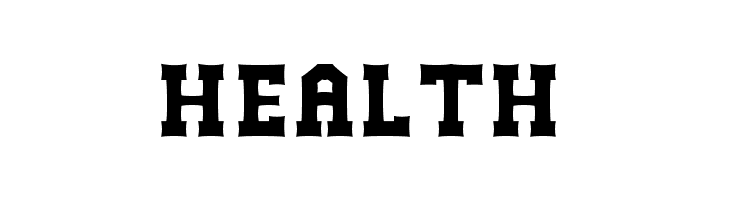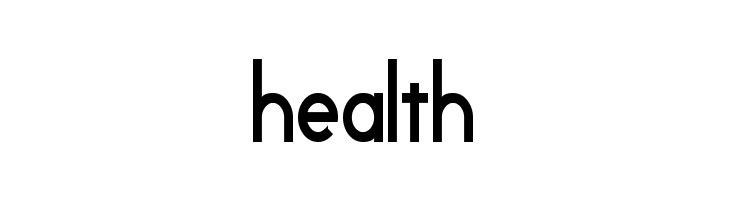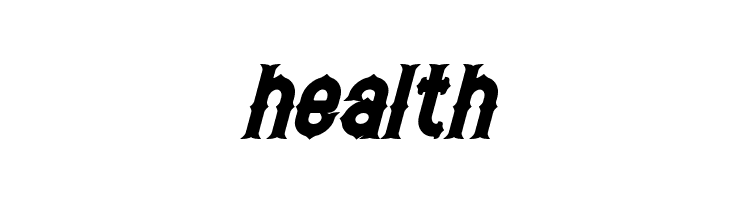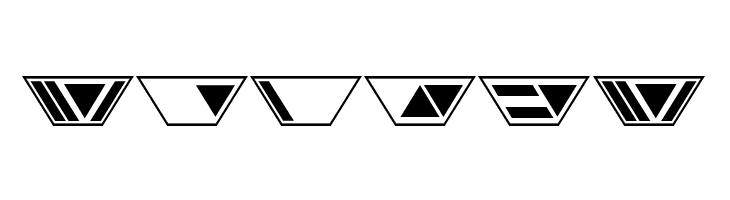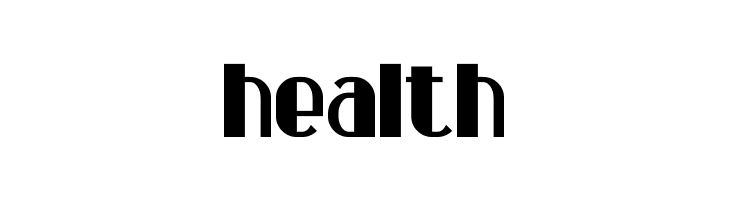
A bold, geometric sans-serif font with clean lines and modern style.
A modern, italicized font with sleek lines and fluid motion.
A geometric, abstract font with futuristic and robotic aesthetics.
A bold, gothic-inspired font with sharp, angular edges.
A bold, modern font with strong vertical lines and subtle curves.
A bold, modern font with strong geometric shapes and high contrast.
A bold, italicized font with thick strokes and a dynamic slant.
A bold, italic font with sharp angles and a dynamic slant.
A bold, aggressive font with sharp, angular edges, ideal for impactful designs.